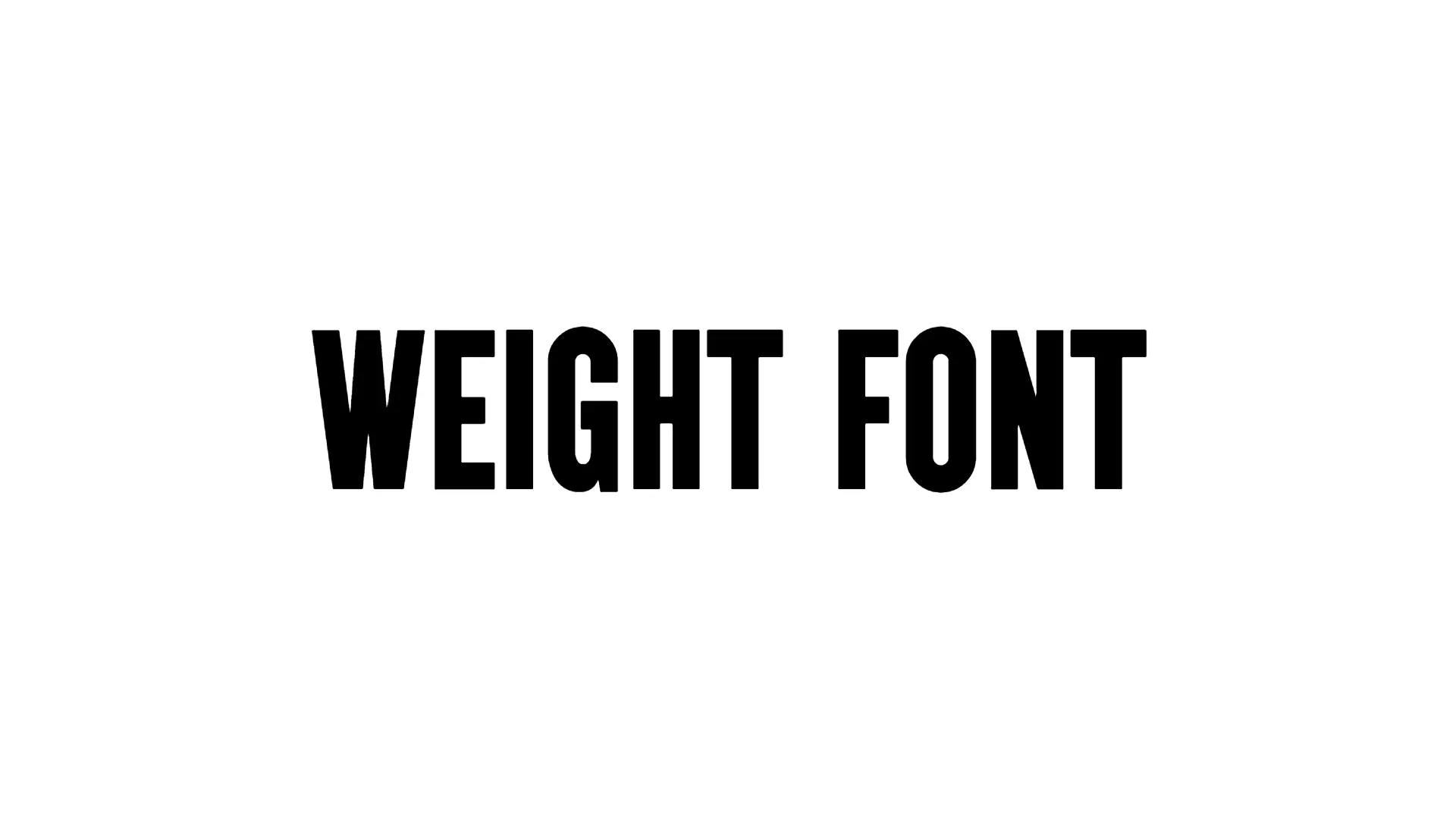
Weight
Weight is a sans serif font created by Usman Albaehaqi and released through Graphicxell. Simple, open letter shapes keep it easy to read at almost any size, from app buttons to big headlines. You can download it for free and test it with your own words in the preview above.
Weight covers the full alphabet in upper and lowercase, plus all ten numbers, so you can set names, dates and prices without switching fonts. Everyday marks like &, !, ? and @ are there too. Thanks to its accented letters, it also works for Spanish, French, German, Portuguese and Italian, not just English.
Think of Weight for websites, app screens and clean logos. It works for headings and body text alike. If the download has several weights, use a heavier one for titles and a lighter one for paragraphs.
Yes. Weight includes the accented letters needed for Spanish, French, German, Portuguese and Italian, so it works for more than just English.